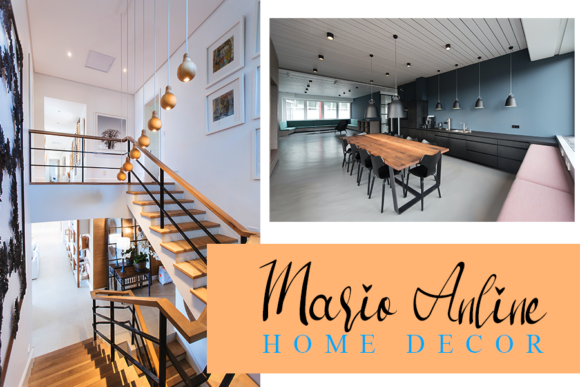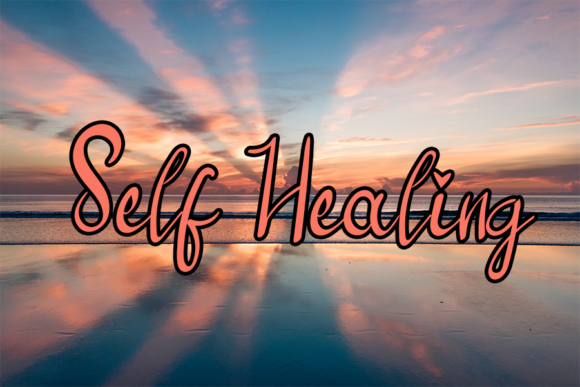
Quote Journal Font
db-ku.com - Script & Handwritten -- Quote Journal is a stylish and incredibly elegant script font. It looks stunning on wedding invitations, thank you cards, quotes, greeting cards, logos, business cards and every other design which needs a customized touch.